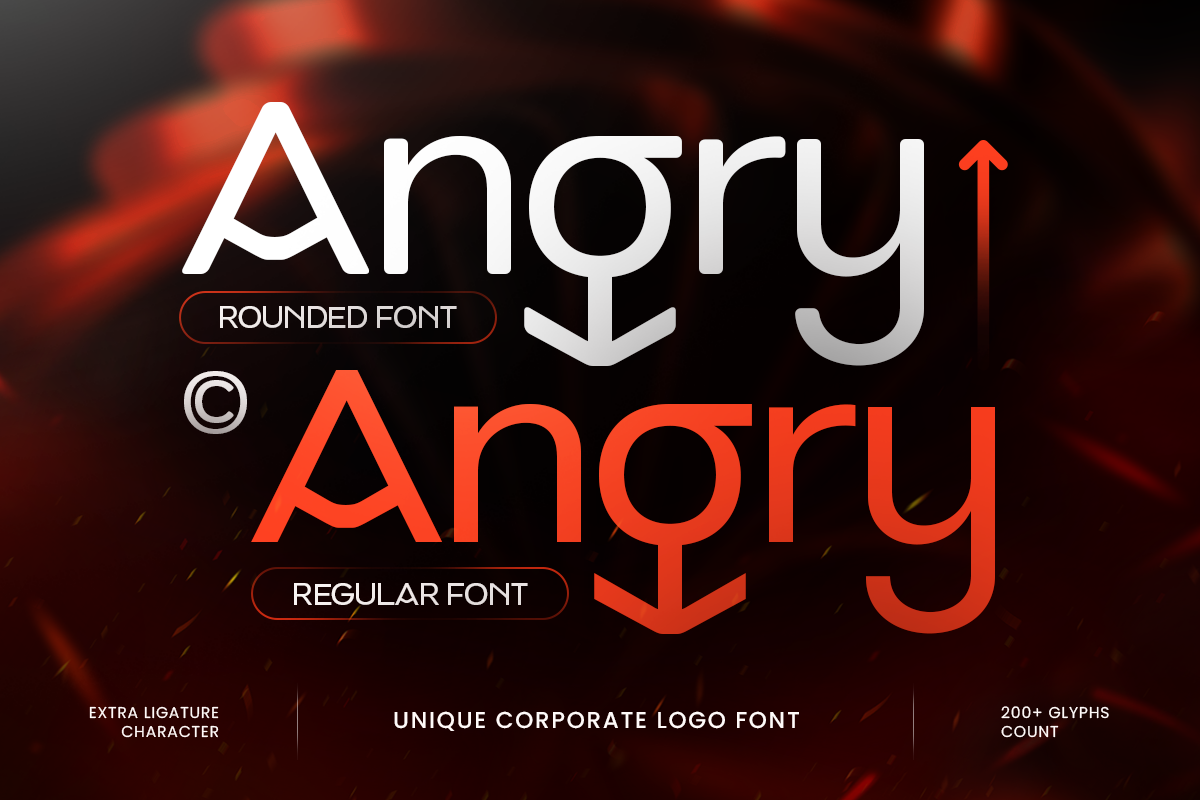
Angry
-Unique Corporate Logo Font
angry regular
Angry
angry rounded
Angry
ANGRY – Unique Corporate Logo Font
ANGRY is a unique corporate logo font designed to give modern brands a distinctive, confident, and professional visual identity. Combining clean structure with memorable letterforms, this modern logo font delivers a polished corporate aesthetic while maintaining enough personality to stand apart from conventional business typography.
Perfect for corporate branding, company logos, brand identity, packaging, advertising, editorial headlines, signage, and presentation design, ANGRY offers a versatile look for both established companies and modern startups. Its balanced forms work effectively across digital applications, websites, UI design, social media graphics, and professional print materials.
Whether used for a technology company, creative agency, consulting firm, product brand, or contemporary business identity, ANGRY provides a strong foundation for recognizable typography. Its unique corporate character makes it an excellent choice for designers seeking a professional branding font with modern visual impact.
ANGRY – Unique Corporate Logo Features
• Unique letterforms crafted for modern corporate identity
• Clean and professional style for business branding
• Ideal for logos, brand identity, packaging, and signage
• Strong display presence for headlines and advertising
• Great for digital, web, UI design, and print projects
• Versatile styling for startups, agencies, and corporate brands
• OpenType features for creative typographic flexibility
Build a distinctive professional identity with ANGRY – crafted for memorable corporate logos and modern branding. ✨